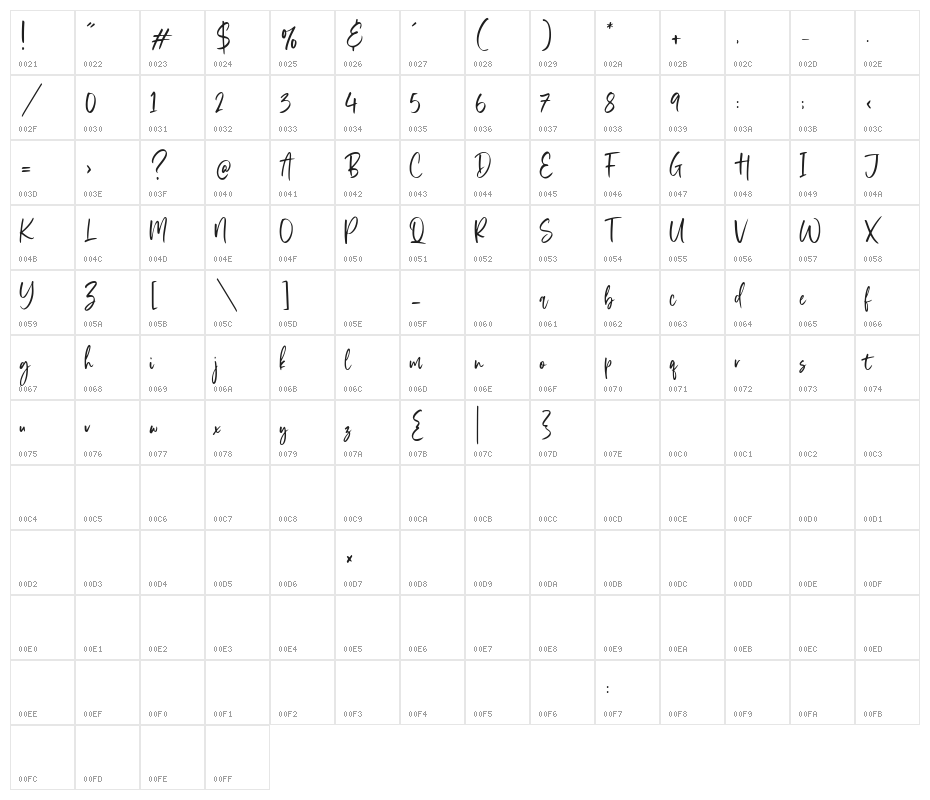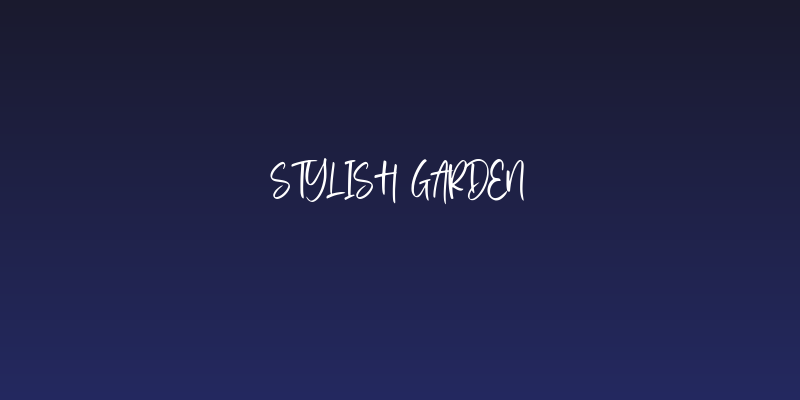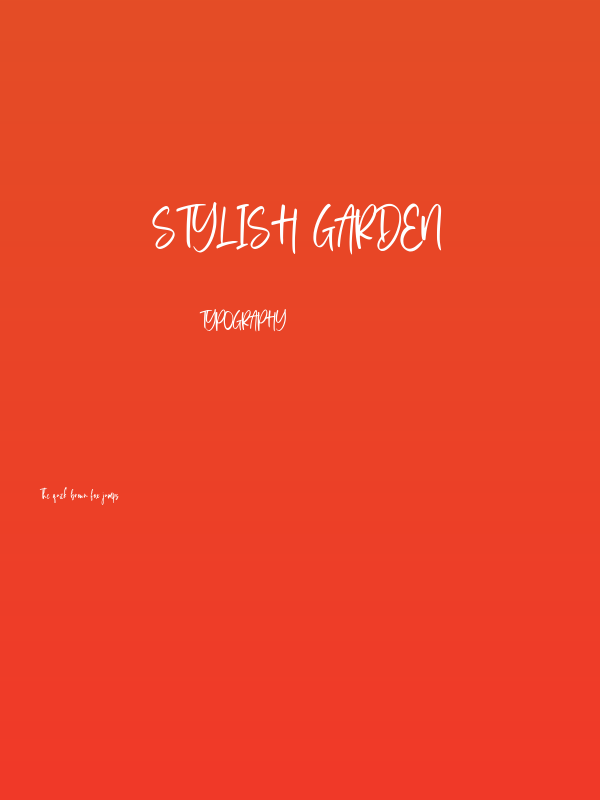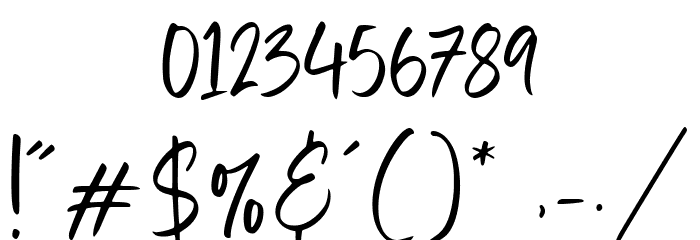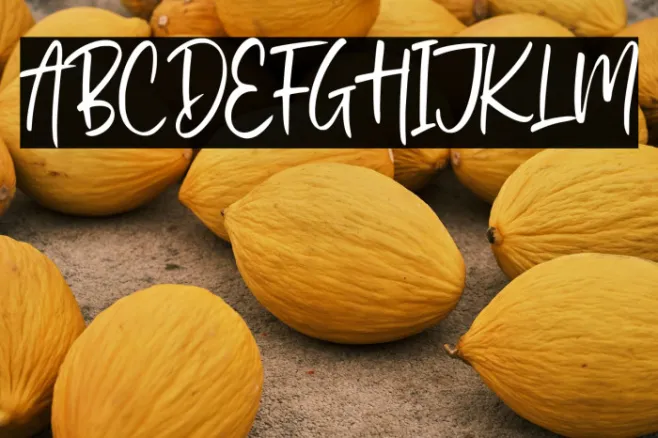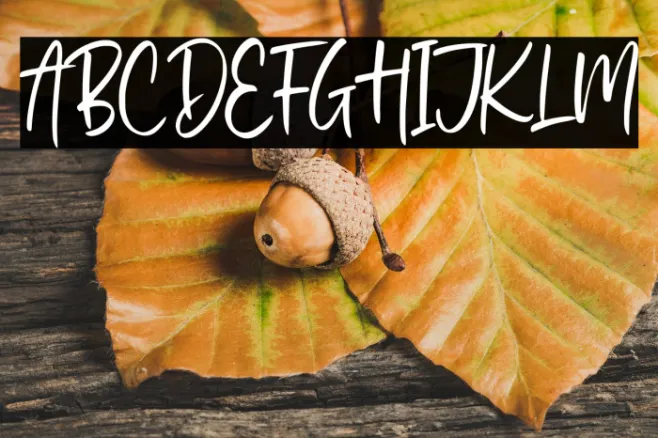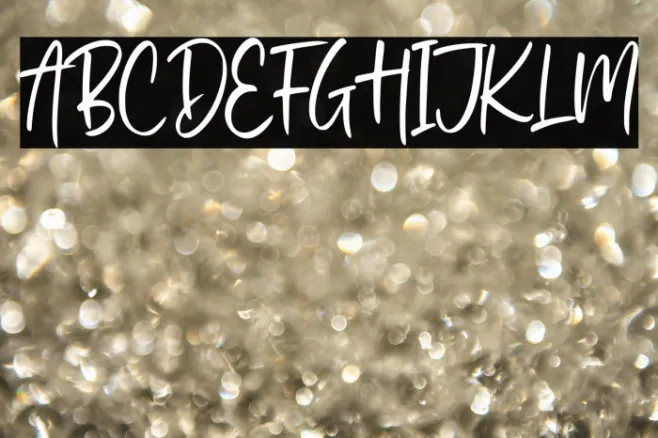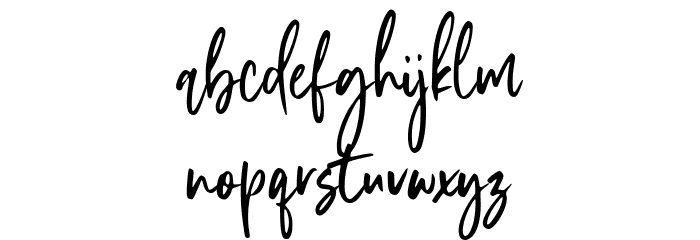
Stylish Garden Font
Stylish Garden Description
This font exudes a lively and dynamic energy, characterized by its handwritten style that mimics the fluidity of natural handwriting. The letters are slightly slanted, giving them a casual and approachable feel. The strokes vary in thickness, adding a sense of movement and personality to the text. The uppercase letters are bold and prominent, while the lowercase letters maintain a consistent flow, enhancing readability. The numerals and special characters are crafted with the same attention to detail, ensuring a cohesive look across all elements. This font is perfect for projects that require a personal touch, such as invitations, greeting cards, or branding materials that aim to convey warmth and creativity.